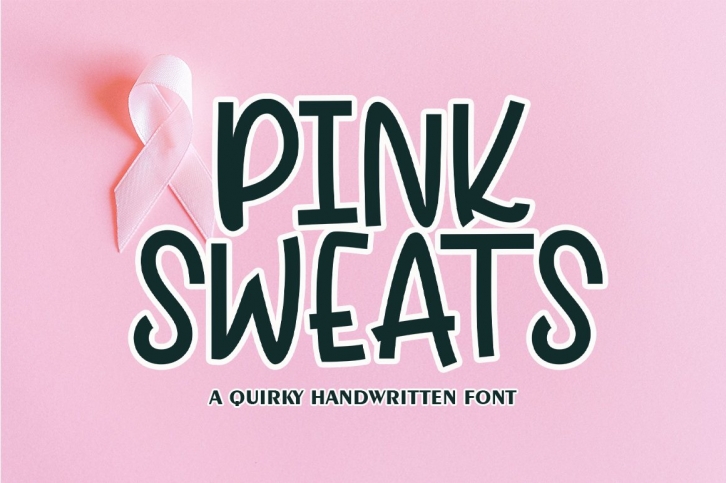
PINK SWEATS is a great font that was designed by Aqeela Studio. Imagine the amount of combinations you can create using this font! The archive is 5.36 MB and it was released on June 12, 2021. PINK SWEATS looks beautiful on wedding invitations, greeting cards, logos, posters, labels, t-shirt designs, logos, business cards and is perfect for use in ink or watercolor works, fashion, magazines, packaging and food menus, children's books and more!